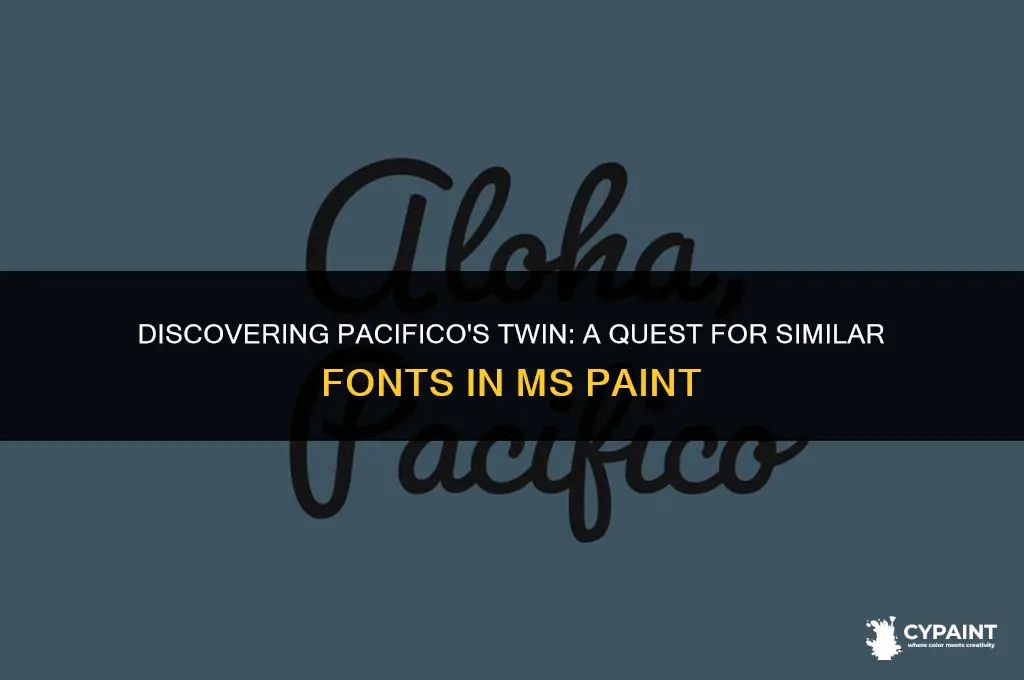
The topic of discussion is whether there is a font similar to Pacifico available in Microsoft Paint. Pacifico is a popular, elegant script font often used for its stylish and flowing appearance, making it a favorite for logos, invitations, and other design projects that require a touch of sophistication. Microsoft Paint, a basic image editing program that comes bundled with Windows operating systems, offers a variety of fonts for users to choose from, but its selection is limited compared to more advanced design software. Users looking to replicate the Pacifico font in their Microsoft Paint projects may find themselves searching for alternatives that can mimic its distinctive cursive style.
Font Alternatives: Explore fonts resembling Pacifico for Microsoft Paint projects
Microsoft Paint, a staple of Windows operating systems, offers a variety of fonts for users to choose from when creating their digital masterpieces. However, one font that has gained popularity for its unique, handwritten style is Pacifico. This cursive font is often used in design projects that require a personal, artistic touch. But what if you're looking for alternatives to Pacifico within Microsoft Paint? Fortunately, there are several options that can provide a similar aesthetic.
One such alternative is the 'Comic Sans MS' font, which, despite its reputation in professional design circles, can offer a playful, informal look that is somewhat reminiscent of Pacifico. Another option is 'Brush Script MT', which, like Pacifico, features a brushstroke-like quality that can add a dynamic, creative flair to your projects. If you're seeking a more elegant, calligraphic style, 'Edwardian Script ITC' could be a suitable choice, offering a sense of sophistication while still maintaining a handwritten feel.
When selecting a font alternative to Pacifico, it's important to consider the specific needs of your project. Are you aiming for a casual, friendly vibe, or a more refined, artistic look? Experimenting with different fonts and comparing their visual impact can help you make an informed decision. Additionally, you may want to consider the legibility of the font, especially if your project involves text that needs to be easily read.
In conclusion, while Pacifico is a beloved font for its distinctive style, Microsoft Paint provides several alternatives that can cater to various design preferences. By exploring these options and considering the unique characteristics of each font, you can find the perfect match for your creative endeavors.
Software Compatibility: Check if Pacifico or similar fonts are supported in Microsoft Paint
Microsoft Paint, a staple graphics editing program in Windows operating systems, offers a variety of fonts for users to choose from. However, it does not natively support the Pacifico font, which is a popular, elegant script typeface often used in design projects. To determine if a similar font is available in Microsoft Paint, one must first understand the characteristics of the Pacifico font. Pacifico is known for its flowing, cursive style and its versatility in both formal and casual design contexts.
To find a suitable alternative in Microsoft Paint, users can explore the fonts listed in the program's text tool. While Microsoft Paint does not offer an exact match to Pacifico, it does provide several script and cursive fonts that may serve as adequate substitutes depending on the specific design requirements. For instance, fonts like 'Brush Script MT' or 'Comic Sans MS' could potentially mimic the aesthetic appeal of Pacifico, albeit with their own unique nuances.
To check for compatibility, users can open Microsoft Paint and select the text tool. They can then scroll through the available fonts in the dropdown menu to see if any resemble Pacifico. If a suitable font is found, it can be selected and used in the project. If not, users may need to consider downloading and installing additional fonts on their system that better match their design needs.
In summary, while Microsoft Paint does not directly support the Pacifico font, it offers various script fonts that could serve as alternatives. Users should explore these options to find the best fit for their design projects. If the available fonts do not meet the desired criteria, external font resources may be necessary to achieve the intended visual effect.